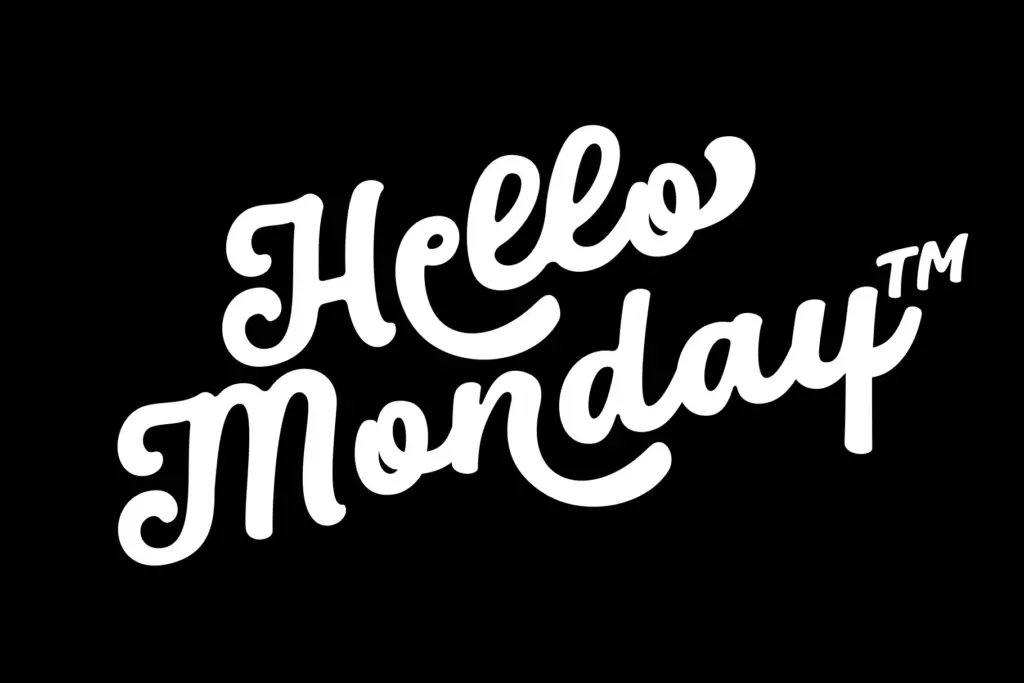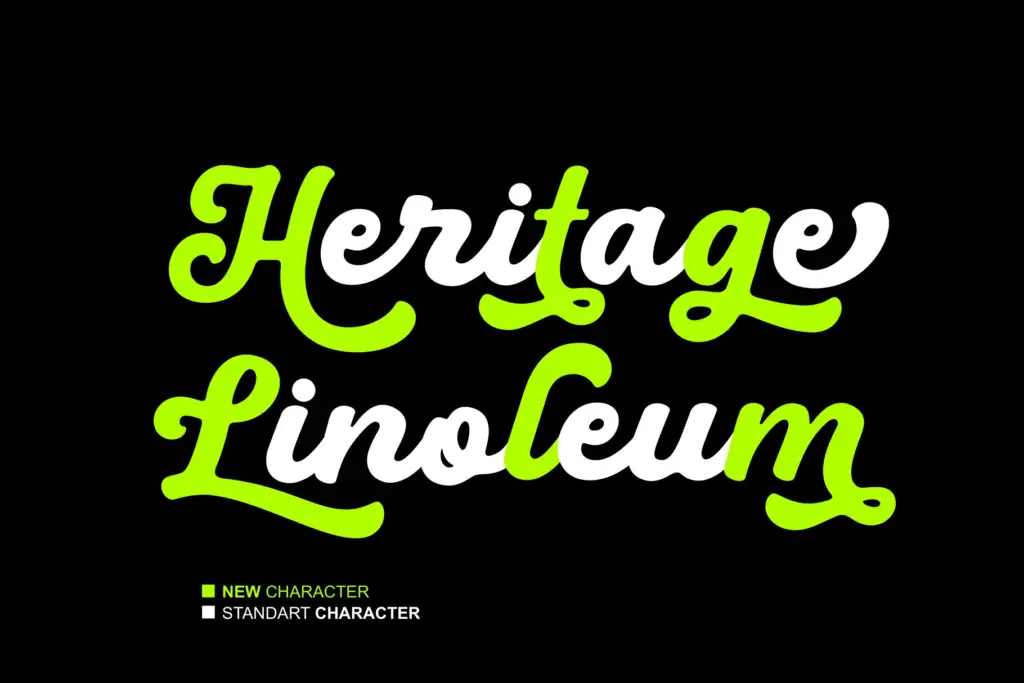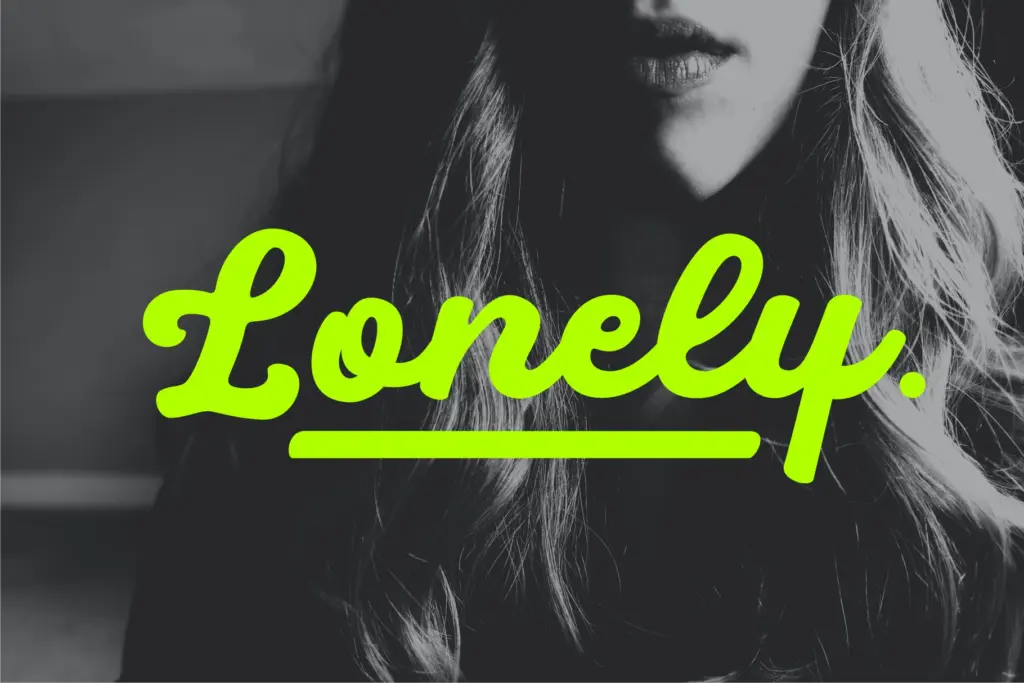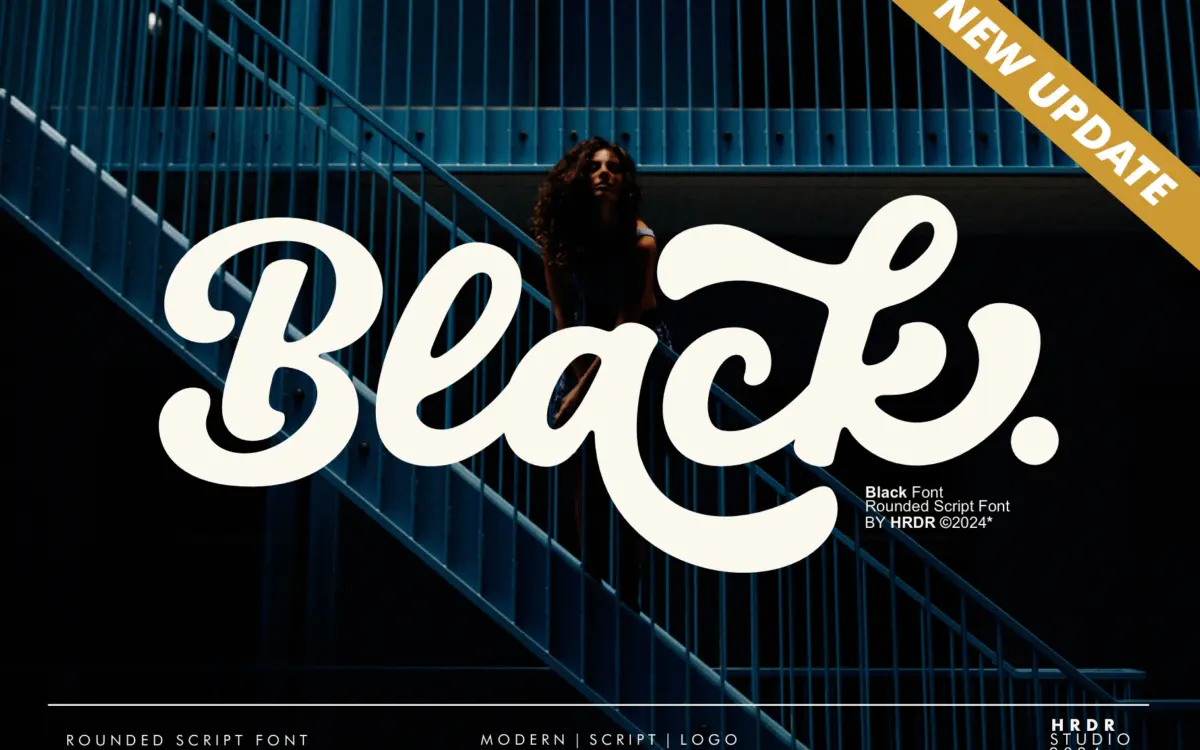
Black: a bold rounded script for playful branding and headlines
Black is a heavy, rounded script that leans into thickness rather than the usual script contrast between thin entry strokes and fuller bowls. The strokes stay dense and round throughout, so the letters read more like fat marker lines than a pen. That gives it a retro, slightly cartoonish charm rather than the elegance you’d get from a copperplate-style script. It sits closer to a hand-lettered logotype than a formal script — the kind of thing you’d see painted on a diner sign or scrawled on a badge.
The joins between letters are generous and looping, keeping the word shapes connected and casual. Because the stroke weight barely varies, individual letters can start to look similar at a glance — the rounded terminals and thick curves repeat often enough that distinctiveness comes more from word shape than from any single character. This is a font built for impact and mood, not for the kind of nuance you’d expect from a refined invitation script.
The set covers uppercase, lowercase, numerals, and multilingual support, plus ligatures and four stylistic alternate sets (Ss01–Ss04). That’s a reasonable amount of range for a script built around a single weight and mood. The alternates matter here more than usual, since the base letterforms are fairly uniform — switching between alternate sets is really the main tool for adding variation within a word, breaking up repeated letters, or dialing the swash energy up or down.
Recent updates added further alternate characters and a swash style, along with a second stylistic pass on the letterforms themselves. That suggests the designer has kept refining the connection points and rhythm, which is useful in a script this chunky — spacing and kerning problems show up fast when strokes are this heavy. PUA encoding is included for software that doesn’t read OpenType features, which matters if you’re cutting vinyl or working in Silhouette or Inkscape rather than a full design app.
Black works best at large sizes: logotypes, poster headlines, packaging badges, T-shirt graphics, anything where a short word or two needs to feel loud and handmade. The playful, retro tone suits novelty branding, food and drink labels, event posters, and merch far more than it suits anything formal. Because the stroke weight is so consistent and heavy, it loses definition fast below headline size — this isn’t a font for body copy, subheads, or anything that needs to be read quickly in a paragraph.
Pair it sparingly with a plain sans or serif for supporting text, since Black already carries a strong personality and doesn’t need competition from another expressive face. It’s a specialist tool: reach for it when a project wants warmth and a bit of retro mischief, and use a quieter typeface for everything else the layout needs to say.
- Heavy, consistent stroke weight gives it strong presence at large sizes
- Four alternate sets plus ligatures allow real variation within short words
- PUA encoding supports software that lacks OpenType feature access
- Uniform weight makes individual letters blur together at smaller sizes
- Retro, playful tone limits it mostly to branding and headline use, not body text
Black is a chunky, retro-leaning script that's good at shouting a short word or two but not built for much else. The stylistic alternates give it useful variety, but the uniform stroke weight limits how far it can flex beyond headline and logo work. A solid pick for playful branding, not a do-everything script.